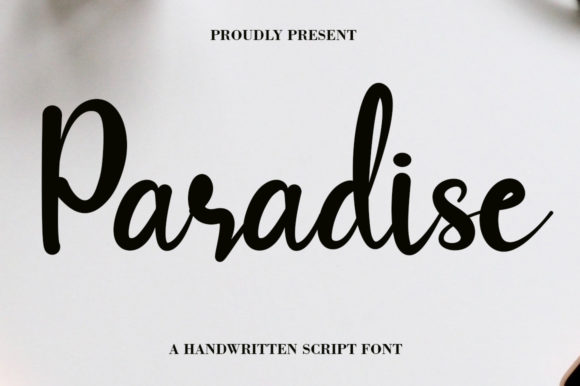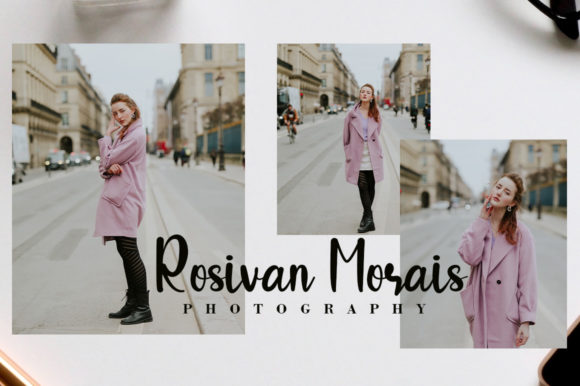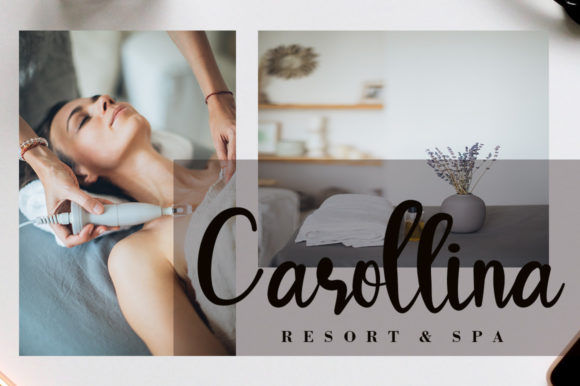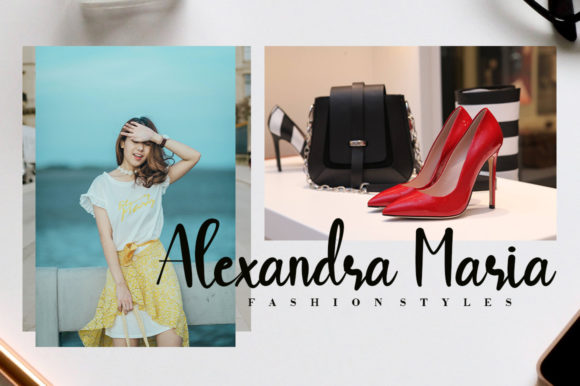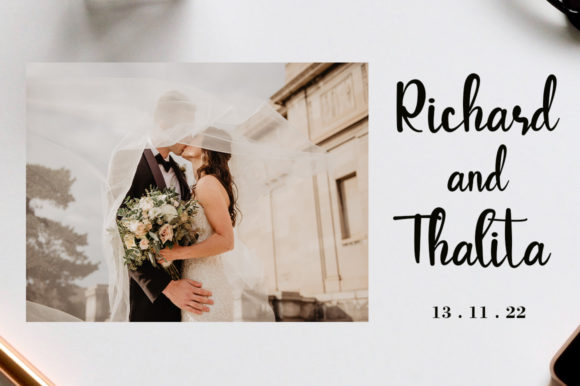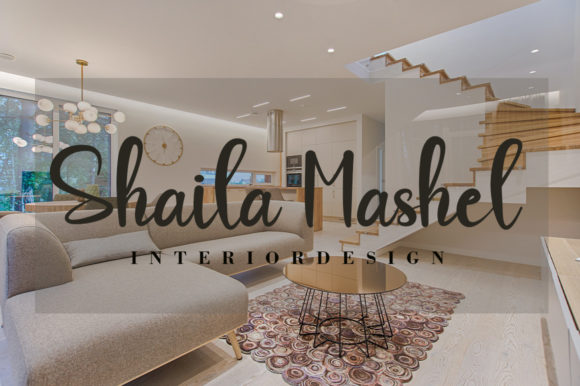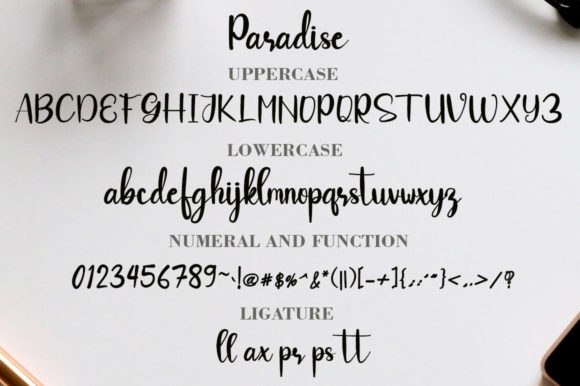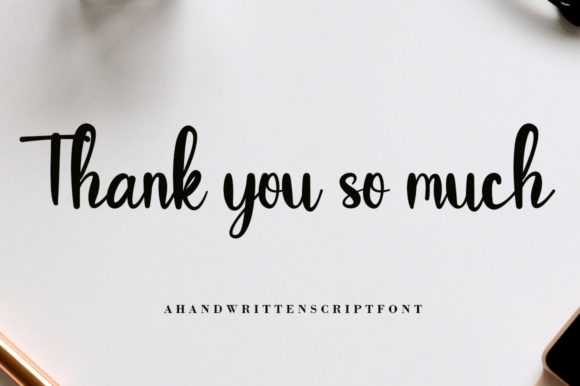
Paradise Font
About Paradise Font
Introducing “Paradise,” a sweet and whimsical cursive handwritten font designed to infuse your designs with charm and elegance. With its soft and graceful strokes, Paradise adds a playful and romantic touch to any project, making it perfect for a wide range of design ideas.
Whether you’re creating wedding invitations, love letters, greeting cards, or social media graphics, Paradise brings a refreshing and delightful look to your designs. Its flowing cursive style exudes warmth and personality, instantly captivating the eye and conveying a sense of whimsy and romance.
With PUA encoding, accessing the wide array of glyphs and ligatures is effortless, allowing you to customize your designs with ease. Whether you’re adding decorative flourishes, stylish swashes, or unique letter combinations, Paradise offers endless possibilities for creative expression.
Experience the beauty and versatility of Paradise and watch as it transforms your designs into works of art. Whether you’re a professional designer or a creative enthusiast, this font invites you to explore new avenues of creativity and express yourself with confidence and style.
Unlock the full potential of your designs with Paradise and let its sweet and cursive elegance bring a touch of magic to every project. With its playful charm and refreshing look, this font is sure to become a beloved addition to your design toolkit, inspiring joy and creativity wherever it goes.